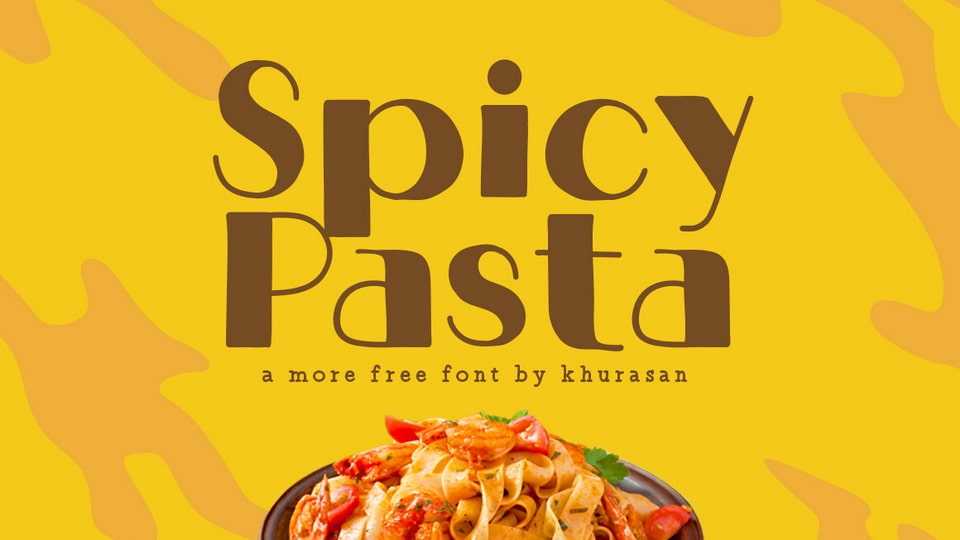
Spicy Pasta Font › Fontesk – Download Grátis
Download Spicy Pizza font, an artistic hand drawn typeface that combines the sophistication of Didone typography with the whimsy of handcrafted creativity. Spicy Pizza font captures the essence of refined elegance and playful artistic expression, creating a visually captivating contrast.